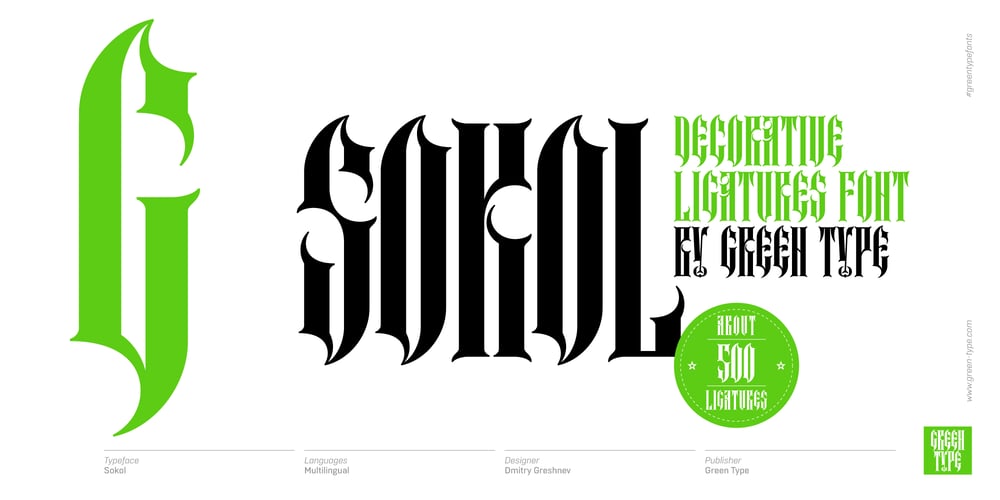
Sokol Font Family was designed by Dmitry Greshnev and published by Green Type. Sokol contains 1 styles and family package options. The design of this typeface was inspired by old Slavonic handwritten fonts. This font includes about 500 Cyrillic ligatures.